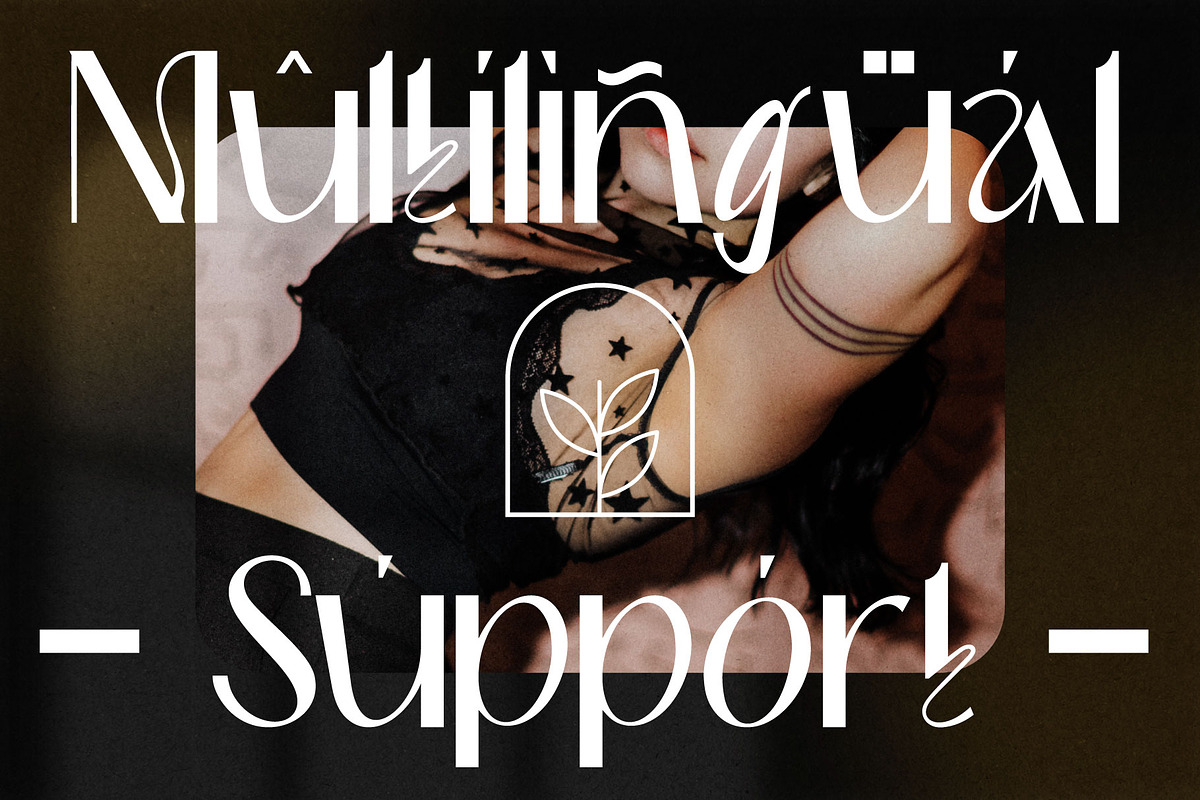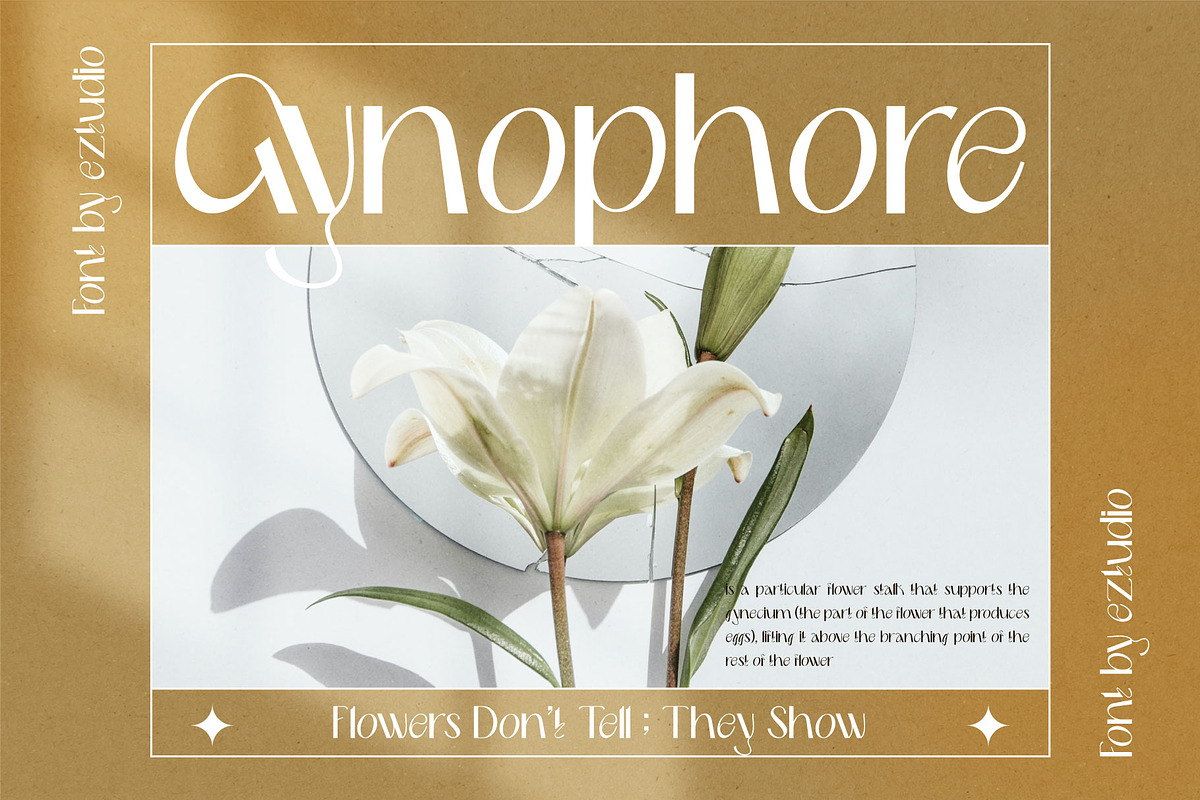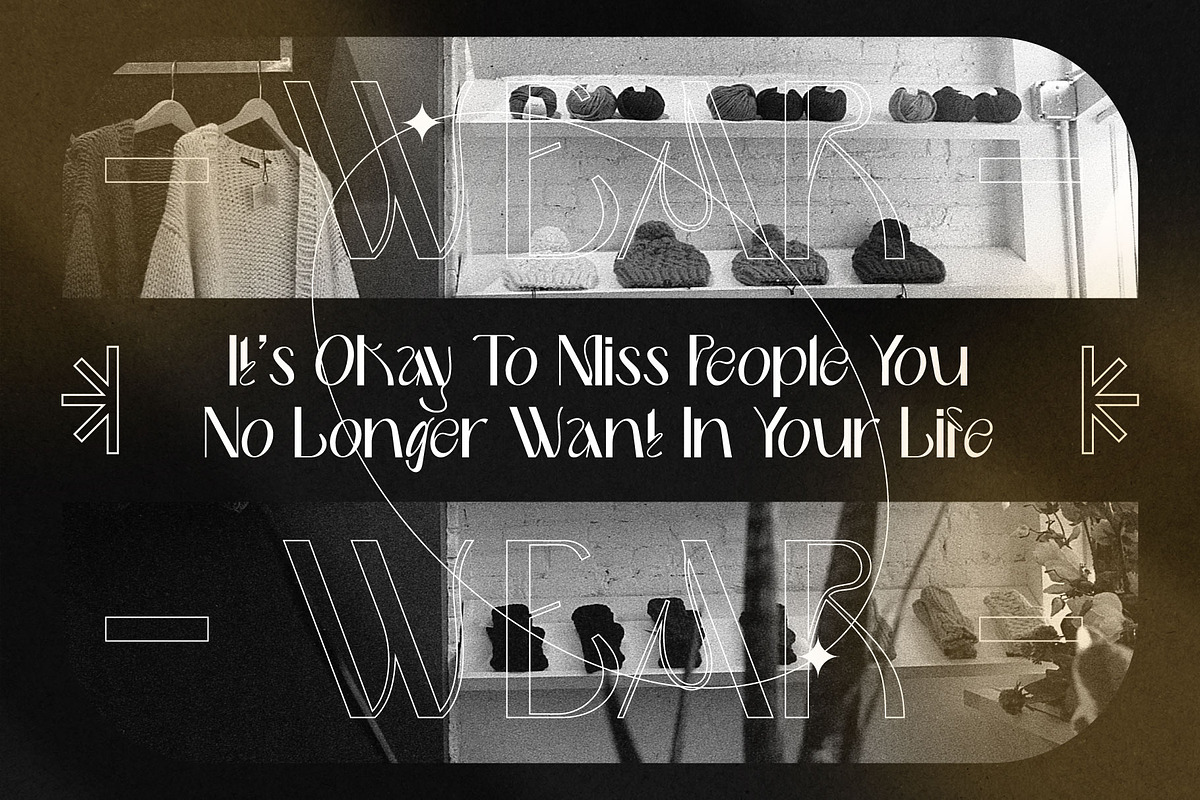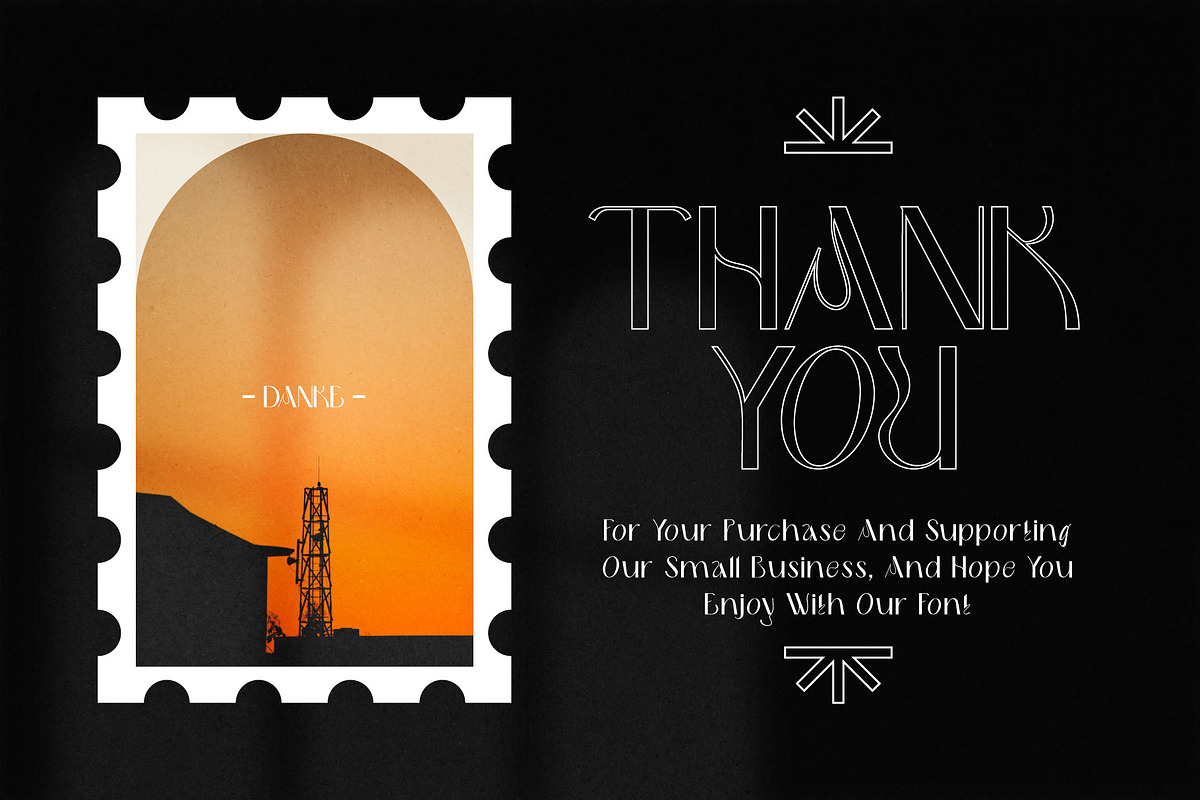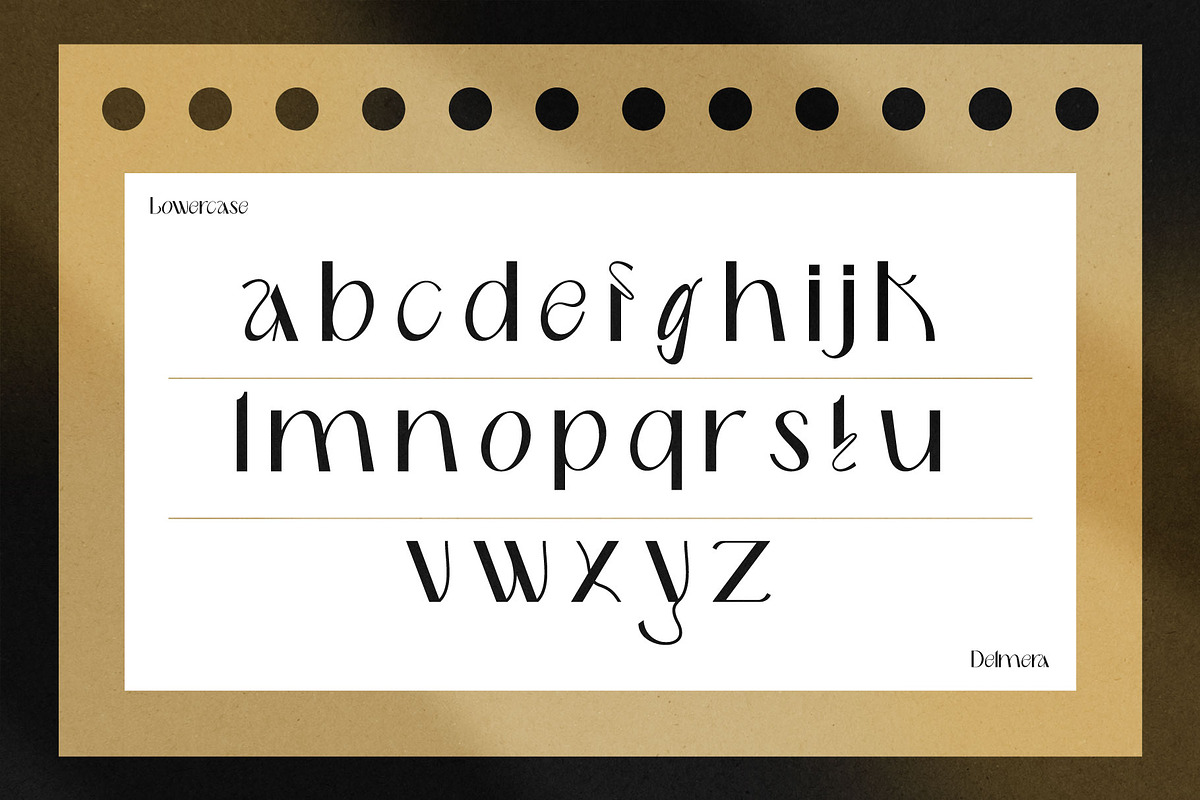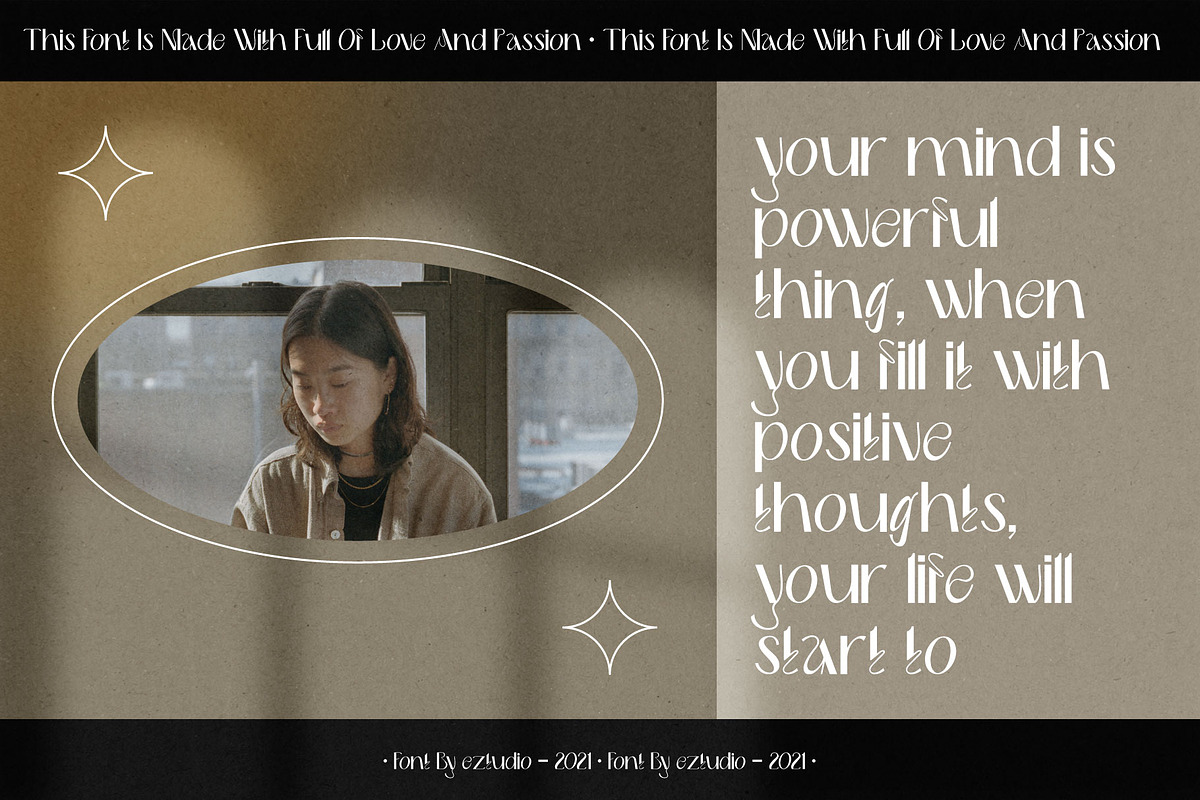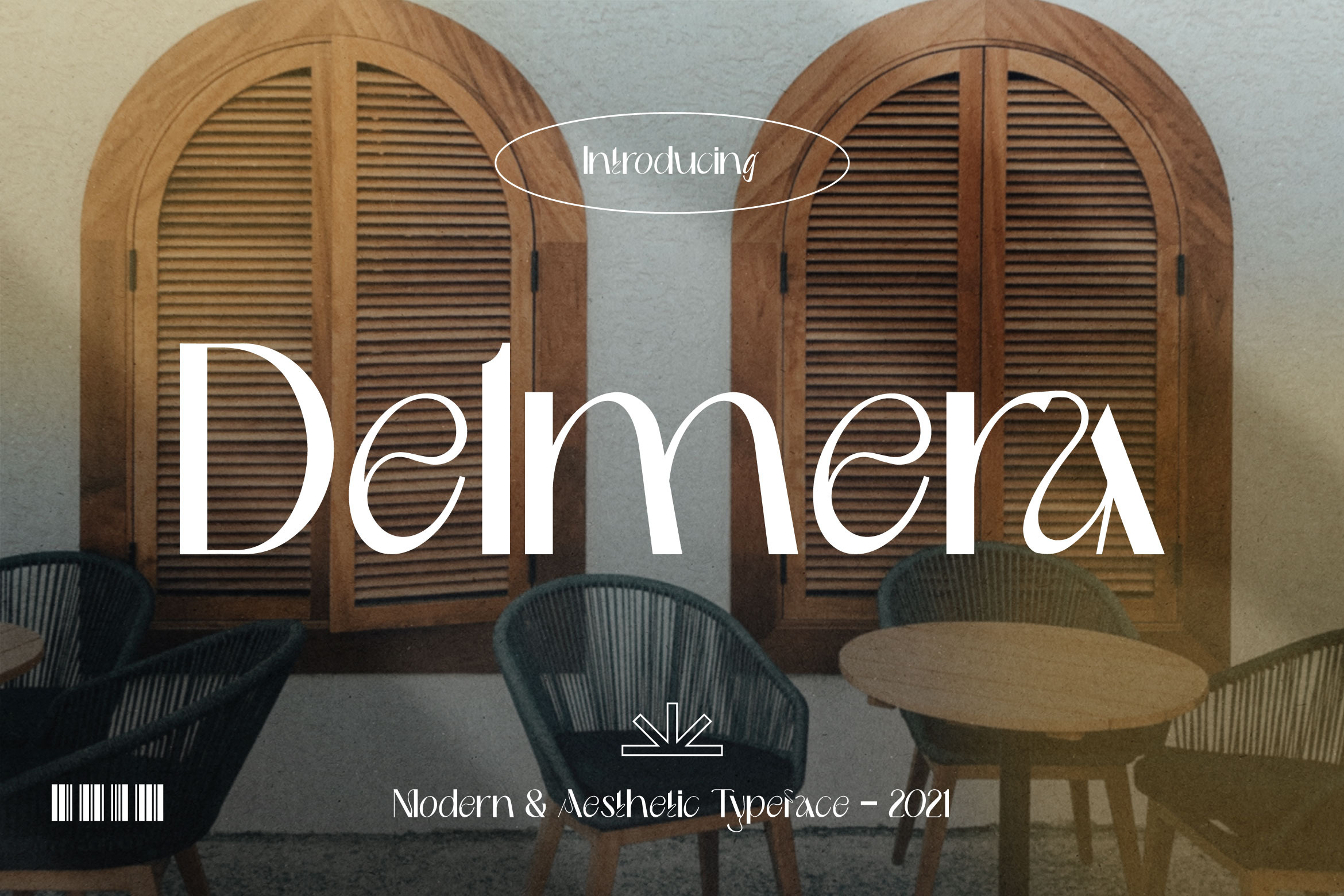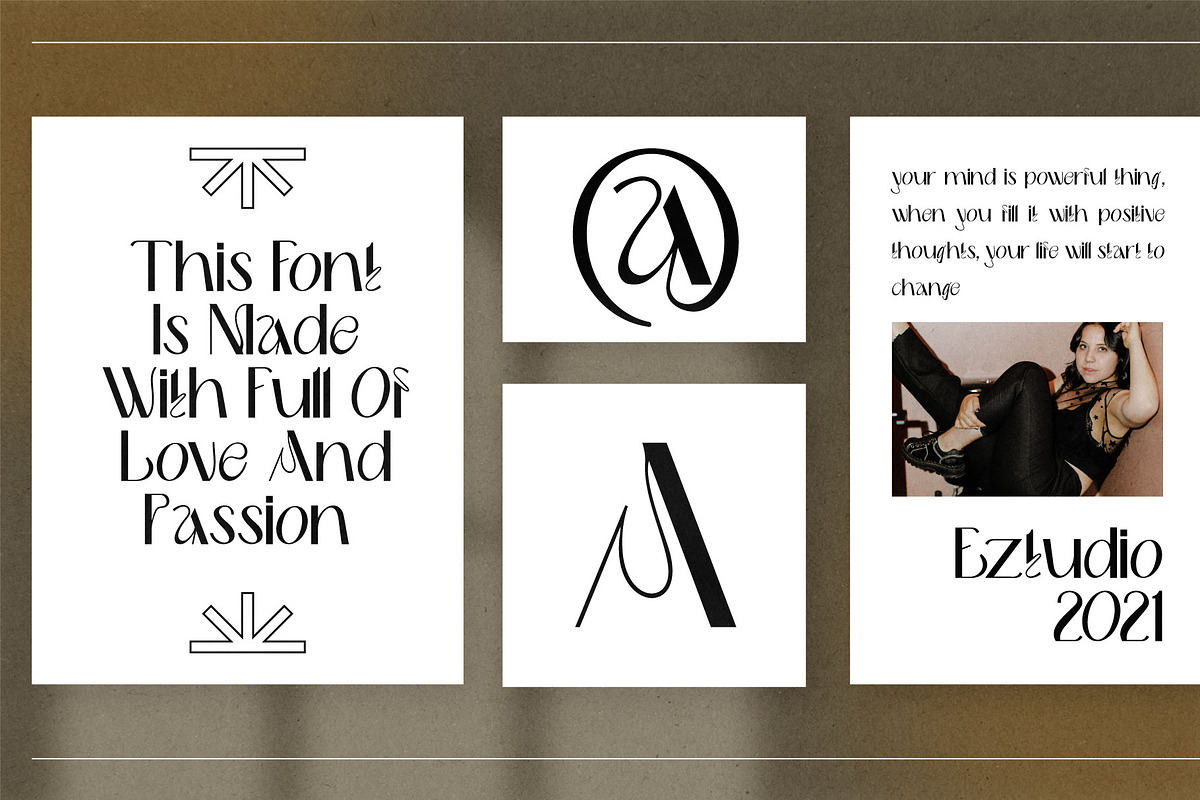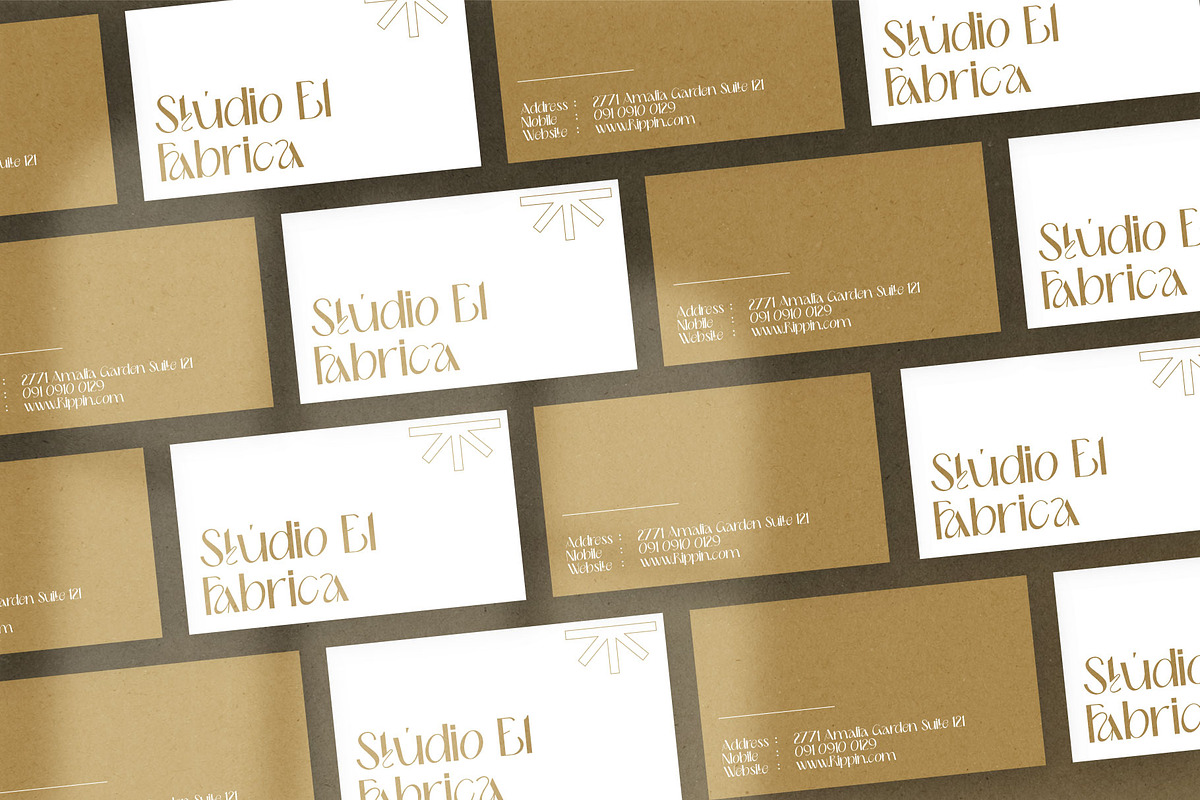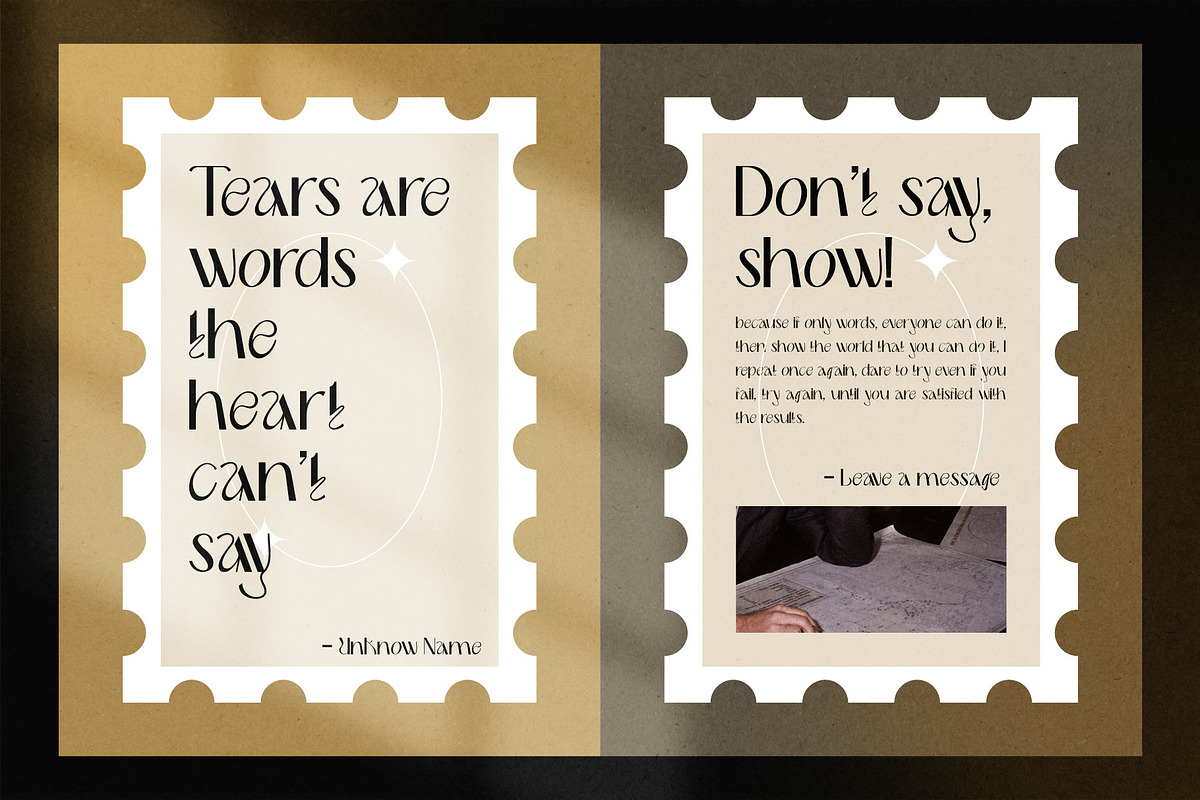
Delmera - Retro Font
Delmera is an incredibly cool, wavy and minimalist display font. It will look stunning on any poster flyer or print. Use this font for your designs and explore its endless possibilities.